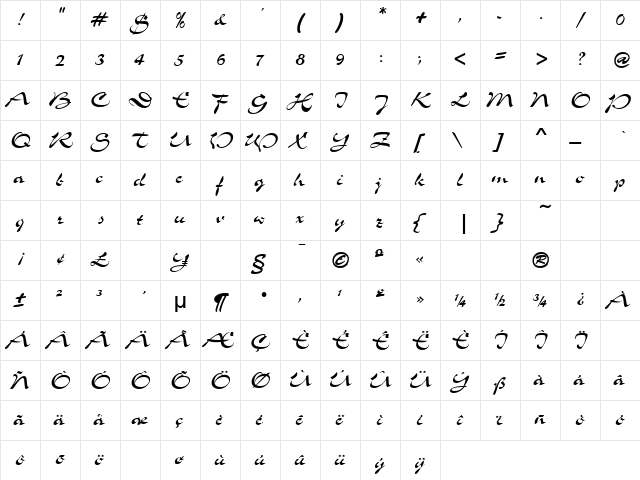
Rhebok Normal Font Preview
Rhebok Normal
Rhebok Normal Font Details
Design Context for Rhebok Typeface
Rhebok is a composed and adaptable typeface that performs quietly and consistently across a wide range of design contexts.